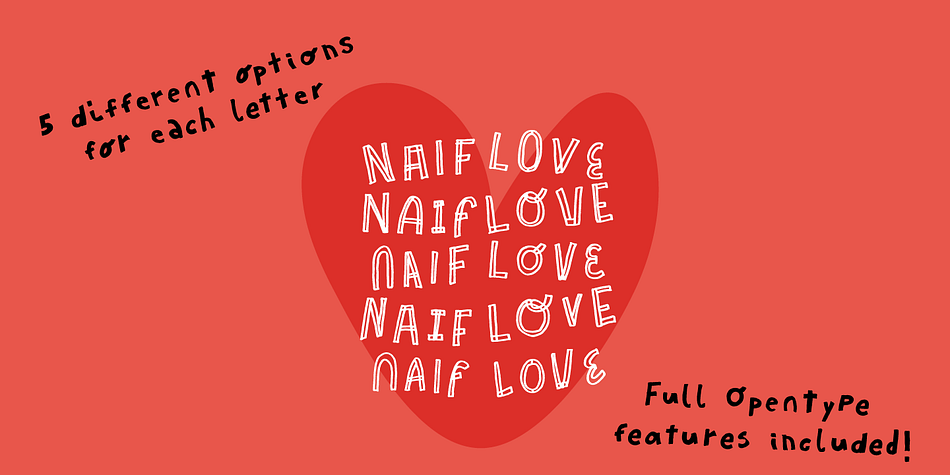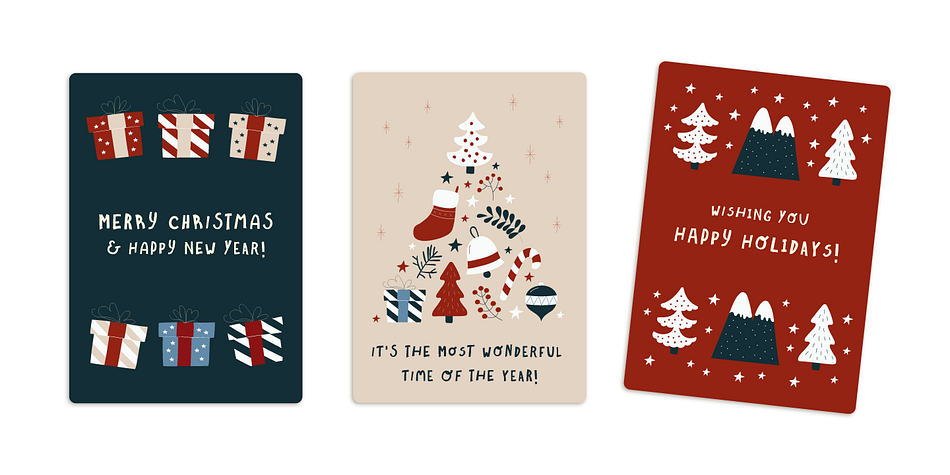
Guess What
Designed by Giuseppe Salerno and Paco González, Guess What is a hand display and hand drawn font family. This typeface has four styles and was published by Resistenza.es.
Guess What
is a new handwritten font system, composed by four styles, Regular, Inline, Shadow and Papercut. Those style can be easily overlapped.
This font has advanced opentype code, including 5 different set which helps you do compose a more random and human typing.
Guess What is a display font, entirely designed using a felt tip marker. We recommend it for many purposes, like book cover, digital ads, kids stuff, comics,  branding and packaging.